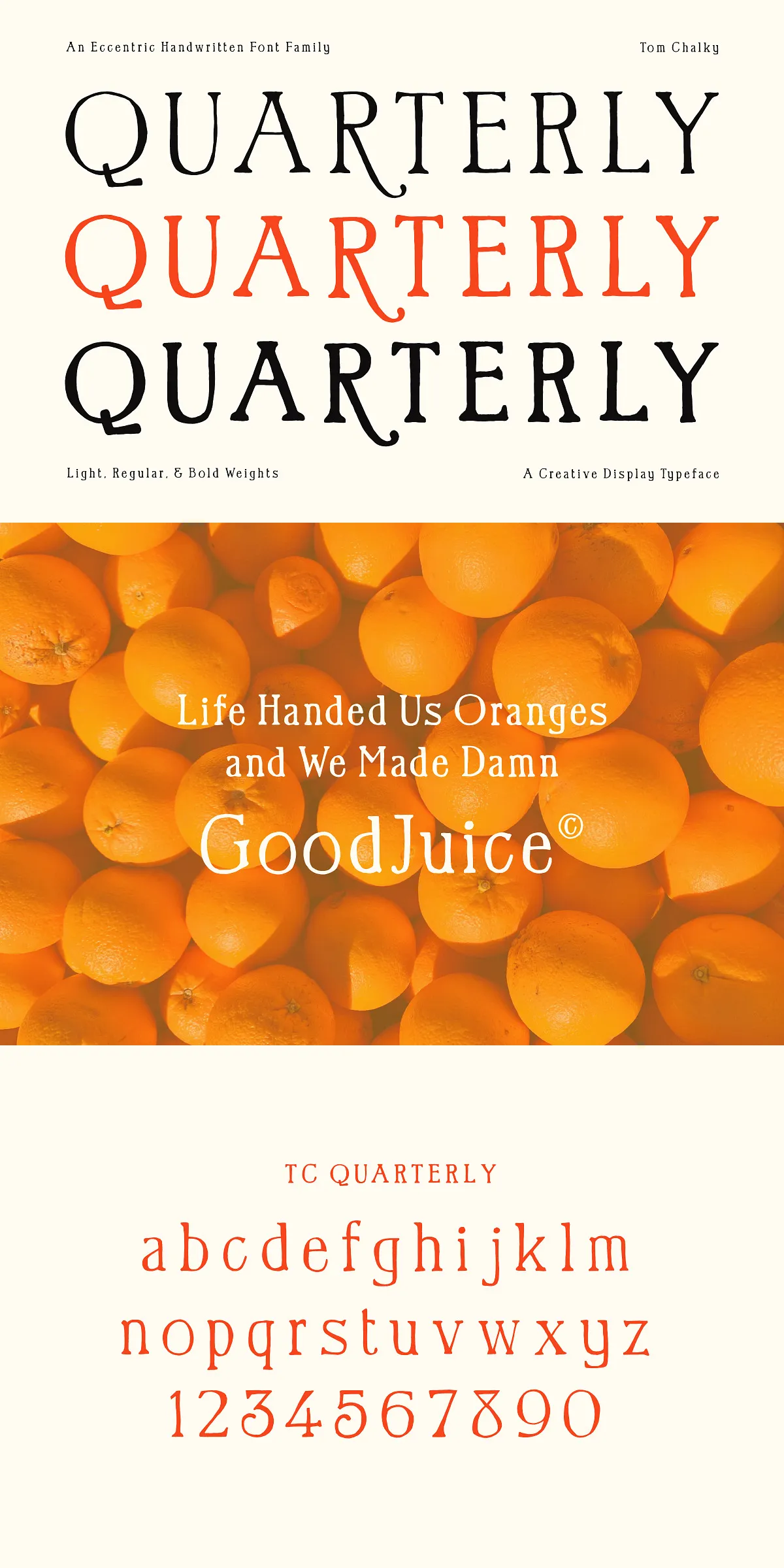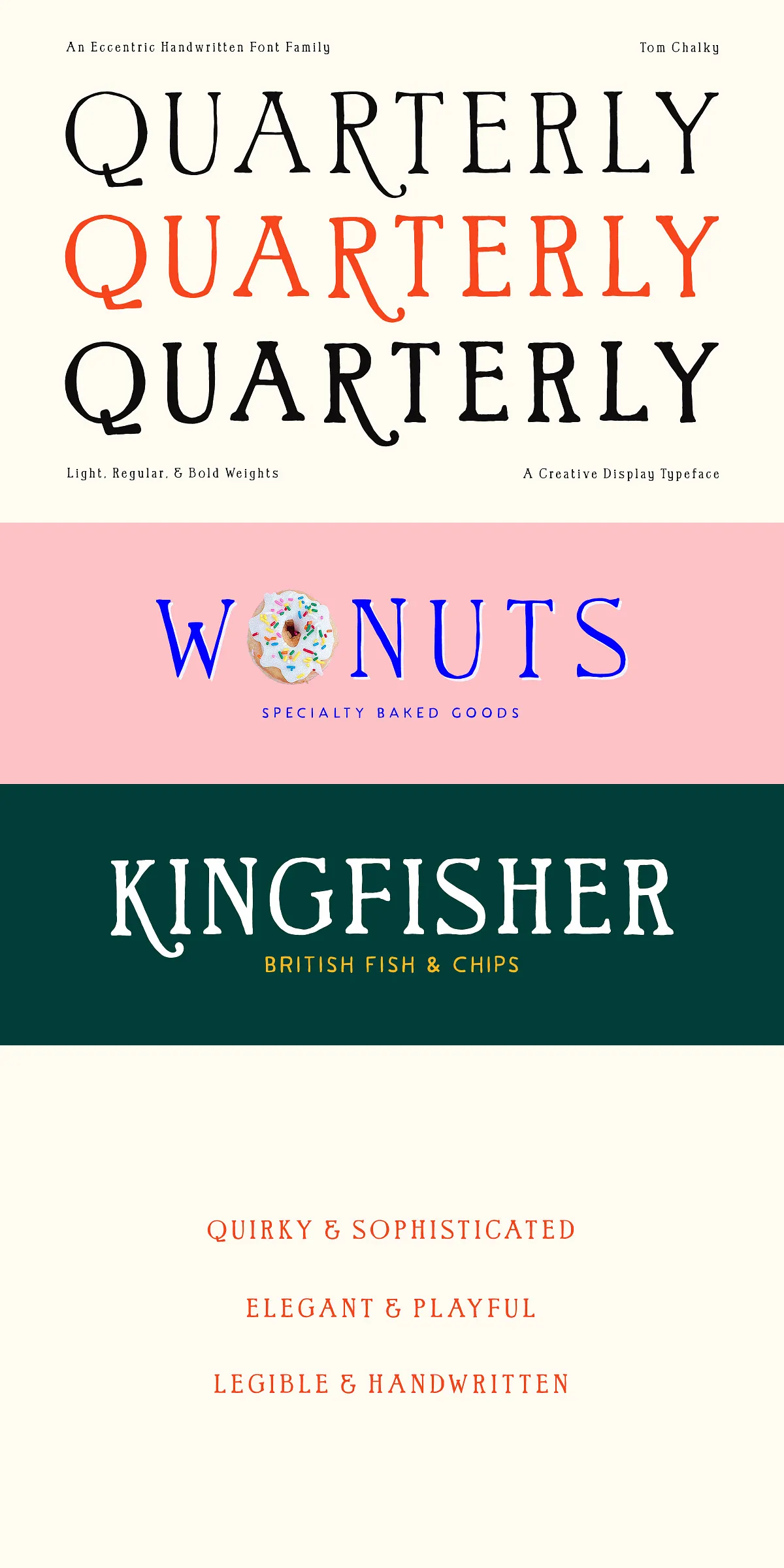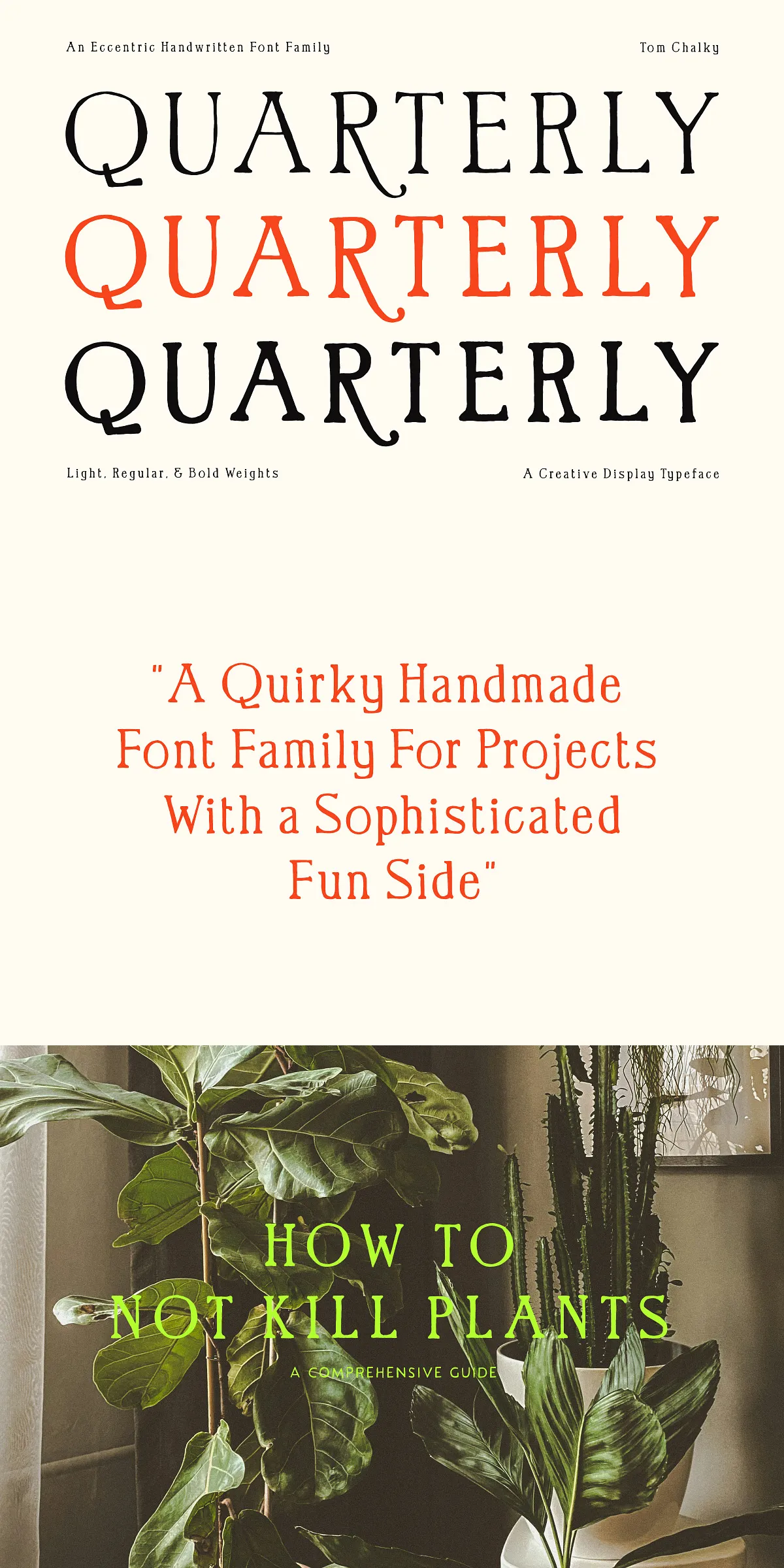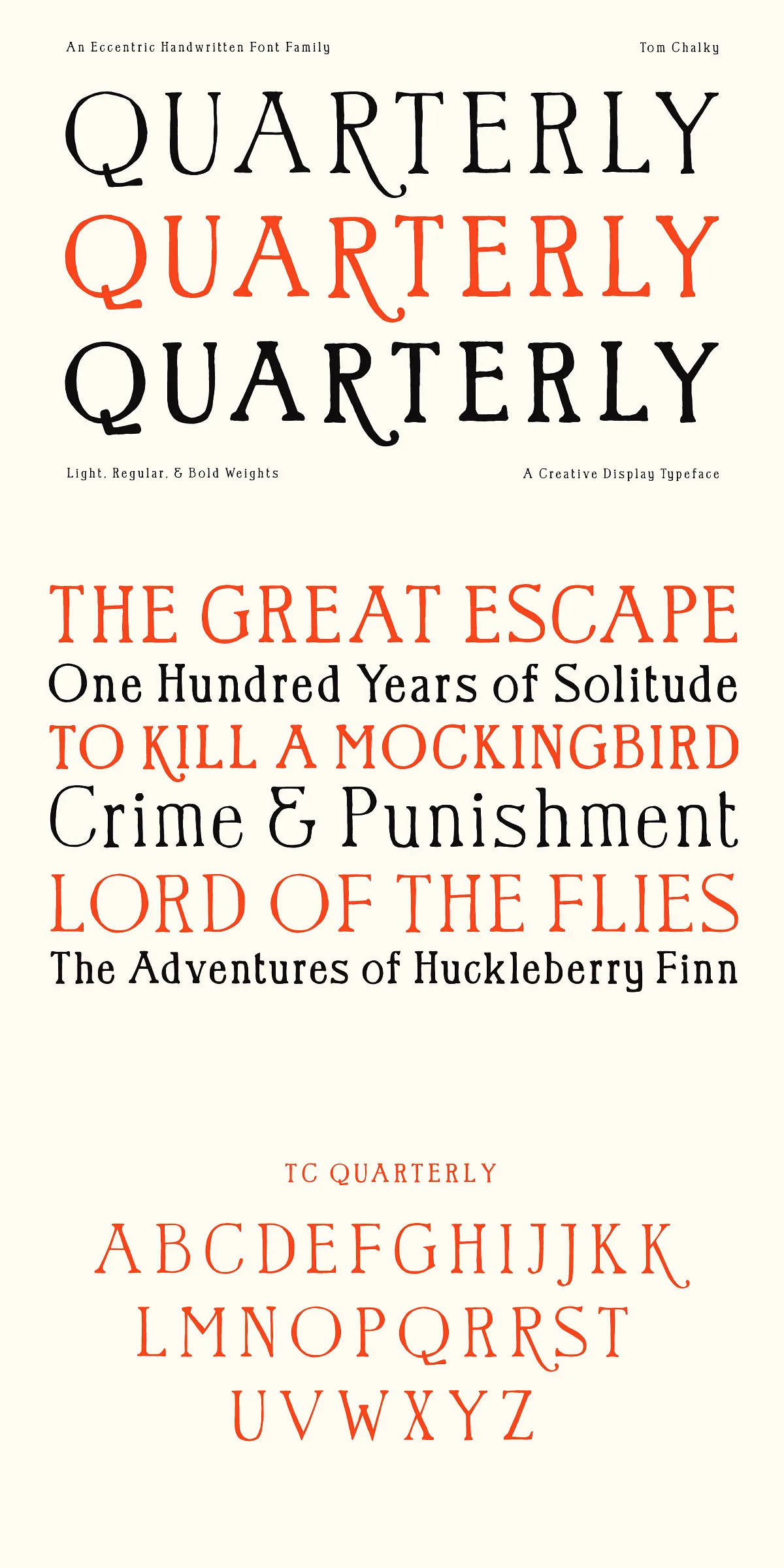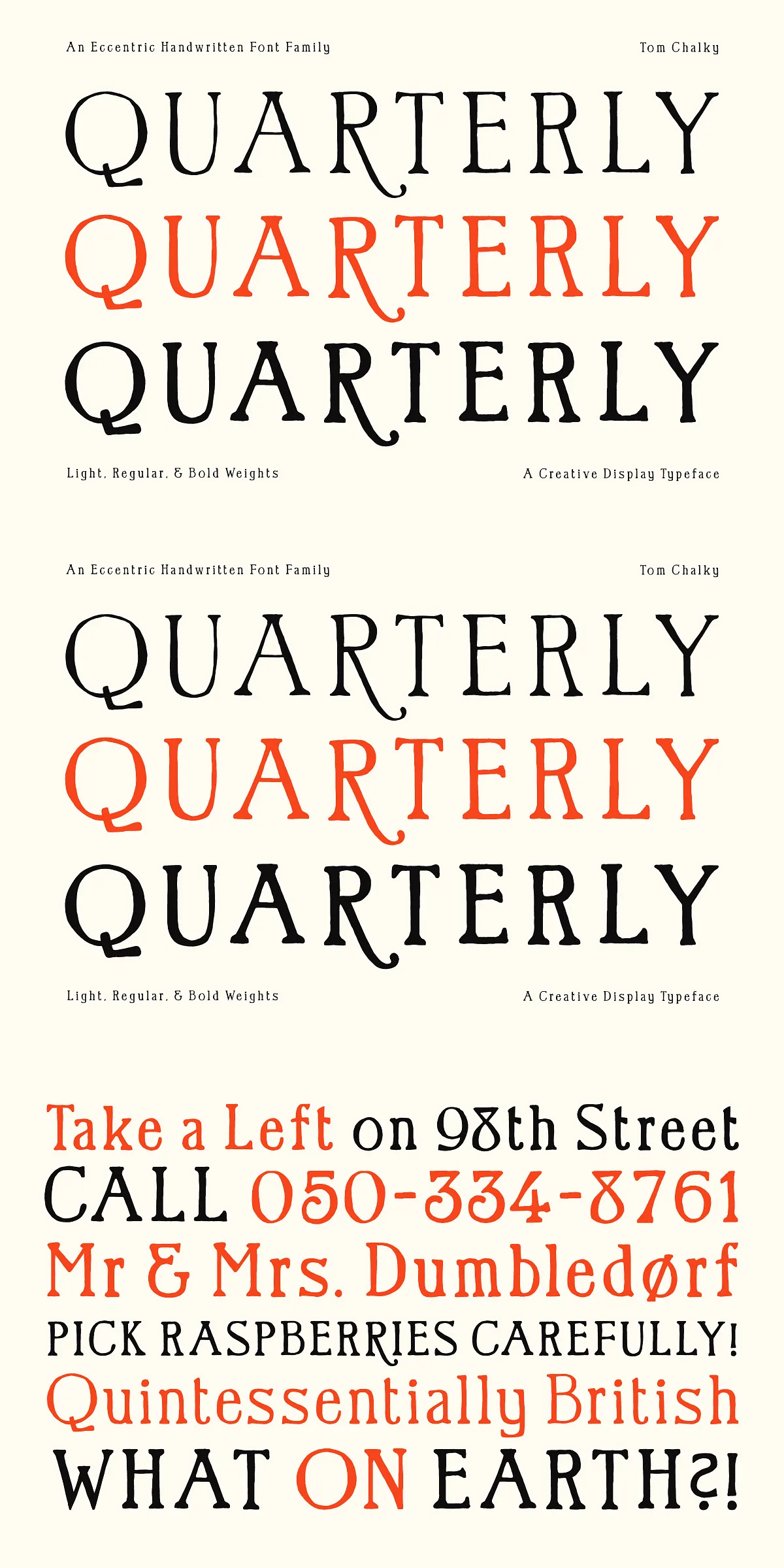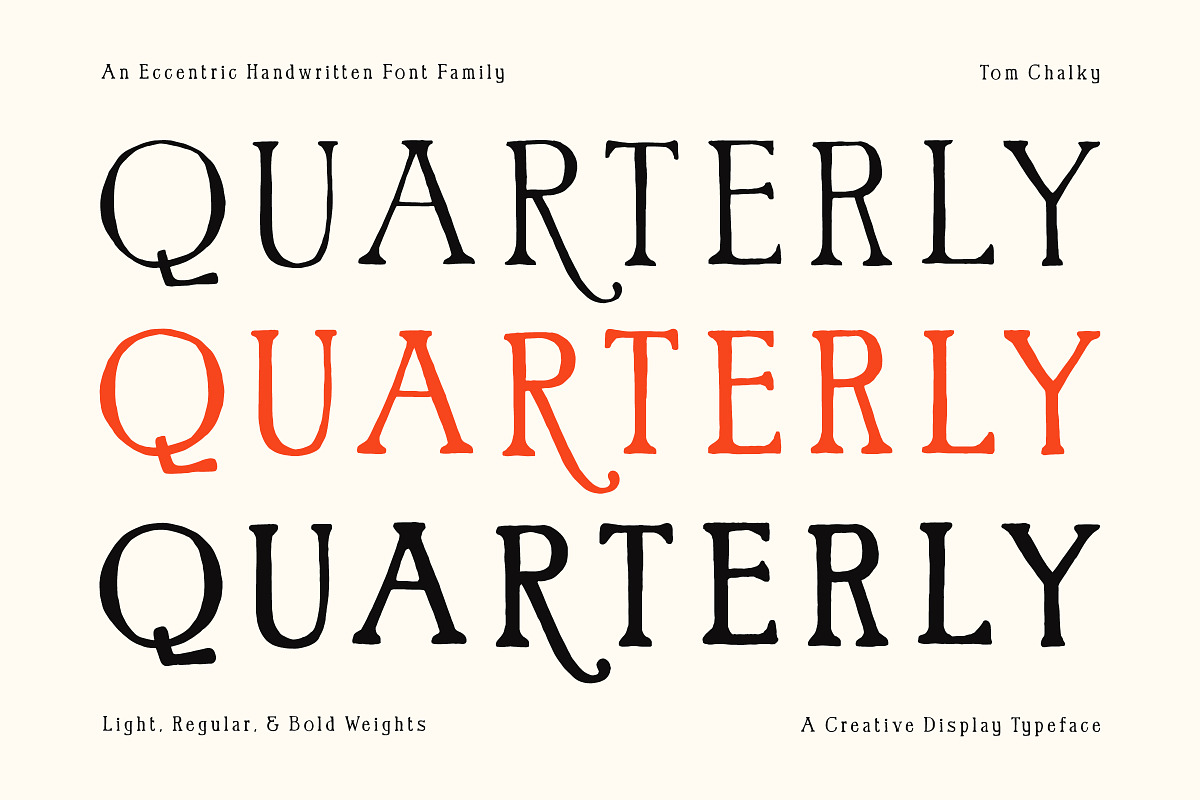
Introducing Quarterly — a vibrant, handcrafted font family that dances between the whimsy of organic handwriting and the refinement of classical typographic tradition. Designed for creators who refuse to choose between fun and finesse, Quarterly brings bold character, expressive strokes, and creative flexibility to every project you work on.
Unleash Creative Energy with Every Letter
Quarterly was born from a desire to capture the soul of hand-drawn lettering without sacrificing readability or sophistication. Each glyph carries subtle imperfections — intentionally irregular stroke widths, dynamic curves, and expressive serifs — all of which contribute to a live, natural feel. Yet, beneath this playful surface lies a strong, deliberate structure that ensures consistency and balance across all weights and sizes.
This isn’t just a casual script. Quarterly is precision-designed to be a serious tool for designers who want to elevate their work with authenticity and charm. Whether you’re designing a boutique brand identity, a limited-edition book cover, or a seasonal campaign, Quarterly delivers personality with purpose.
Three Bold Weights, Infinite Possibilities
Quarterly comes in three distinct weights — Light, Regular, and Bold — each tailored to different visual needs and design contexts:
- Light: Ideal for delicate headings, journaling, or subtle accents in editorial layouts.
- Regular: The workhorse of the family — perfect for body text, invitations, product labels, and clean branding.
- Bold: Command attention with dramatic headlines, poster designs, or standout title treatments.
These weights are designed to work together harmoniously, offering scalable contrast and visual rhythm when used in combination.
Rich Character Support for Global Creativity
Designed with modern projects in mind, Quarterly supports Latin 1 glyphs, giving you full access to diacritics and special characters needed for French, German, Spanish, Scandinavian, and other Western European languages. This makes it a practical choice for international branding, multilingual publications, and creative agencies working across borders.
Smart Typographic Tools Built-In
Quarterly includes a full set of fraction numerals — small, beautifully proportioned numbers designed to integrate seamlessly into text. Use them to create elegant recipe cards, vintage-style labels, or sophisticated data graphics — without breaking the flow of your design.
Creative Applications That Inspire
Quarterly was built to shine in real-world design scenarios. Here’s how top creators are using it:
- Branding & Identity Design: Create memorable logos and brand systems with a human touch that stands out in a digital landscape.
- Book Covers & Editorial Layouts: Perfect for literary works, coffee table books, journals, and magazines where narrative depth meets visual personality.
- Event Invitations & Stationery: Add warmth and charm to wedding invites, anniversary cards, baby showers, and more.
- Product Packaging & Labels: Use the bold, hand-drawn aesthetic to give products a DIY, artisanal feel.
- Social Media & Digital Campaigns: Bring energy and authenticity to Instagram posts, YouTube thumbnails, and email newsletters.
- Art & Typography Displays: Transform quotes and poetry into visual statements with dynamic line weights and expressive letterforms.
Professional-Grade File Format & Easy Integration
Make Your Design Feel Alive — With Quarterly
Typography should do more than convey words. It should tell a story. It should feel human.
Quarterly isn’t just a font. It’s a voice. It’s the feeling of a pen moving across paper, the confidence of a handwritten note that means something. It’s the perfect blend of spontaneity and structure — the kind of typeface that helps your message land with heart, authenticity, and impact.
So go ahead — use it on a book cover. Let it lead your brand. Let it add soul to your next campaign. Quarterly awaits your next bold creative leap.